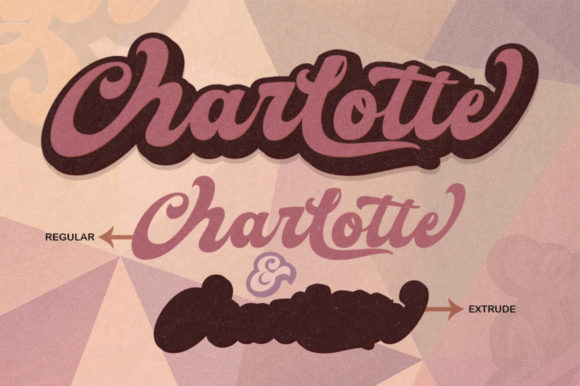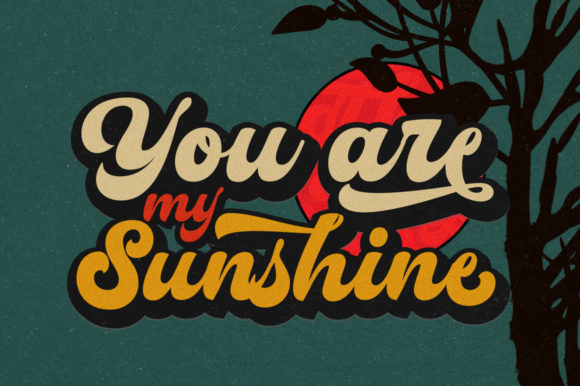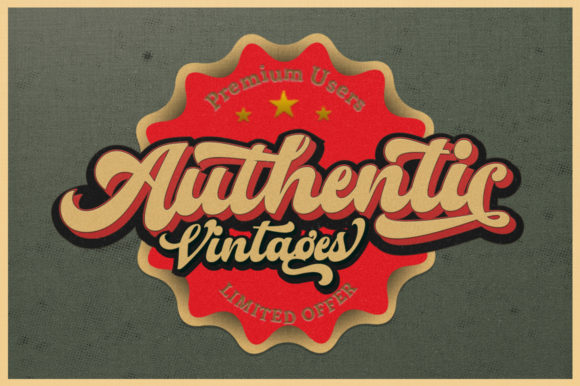
Introduction to Nigthwel Script Font
Have you ever been working on a creative project, pouring your heart and soul into every detail, only to be stuck on the perfect font? The one that captures the essence of your vision and transports your audience to a different time and place? For designers, finding that perfect font can be a game-changer, and that’s exactly what Nigthwel Script Font is – a bold and fun script font with a lot of authentic charm.
| 👤 Author | Picatype Studio |
With its vintage vibe, Nigthwel Script Font is the perfect design resource for any creative project that needs a touch of nostalgia and elegance. Whether you’re designing a wedding invitation, a logo, or a promotional poster, this high-quality font is sure to make your design stand out. And the best part? It’s available for free download, making it an accessible and valuable addition to any designer’s toolkit.
Key Features of Nigthwel Script Font
- Unique, handwritten design ideal for creative projects, with a transparent background for versatility.
- Supports a range of languages, including Latin, Cyrillic, and Greek scripts, making it a suitable choice for international creative projects.
- Comes with a comprehensive character set, including uppercase and lowercase letters, numbers, and punctuation marks.
- Perfect for designers and artists working on creative projects, from invitations and posters to branding and packaging designs.
Honest Review: Nigthwel Script Font
I recently stumbled upon the Nigthwel Script Font, and I’m excited to share my thoughts on this design resource. As a designer, I’m always on the lookout for high-quality fonts that can elevate my creative projects.
The Nigthwel Script Font is a beautiful, elegant script font that’s perfect for adding a touch of sophistication to your designs. It’s available for free download, which is a huge plus in my book. The font is well-suited for use on a transparent background, allowing your design to truly shine.
Here are some things that work well with the Nigthwel Script Font:
- ✨ Elegant and sophisticated feel
- ✨ Perfect for use on a transparent background
- ✨ High-quality design
However, I do have a few limitations to note:
- ⚠️ Limited character set (may not be suitable for extended text)
- ⚠️ May require some adjustments for optimal legibility
Overall, I’m impressed with the Nigthwel Script Font. It’s a great addition to any designer’s toolkit, and I’m excited to see how it can be used in future creative projects.
Tips for Getting the Most Out of Nigthwel Script Font
Use Nigthwel Script Font to add a touch of elegance to your design projects. Experiment with different font sizes and colors to create a unique look. Consider pairing Nigthwel Script Font with a high-quality image or design resource to elevate your creative project.
Common Use Cases for Nigthwel Script Font
Nigthwel Script Font is ideal for use in creative projects such as wedding invitations, baby shower invitations, and other special occasion designs. It’s also great for use in branding and marketing materials, such as logos and business cards.